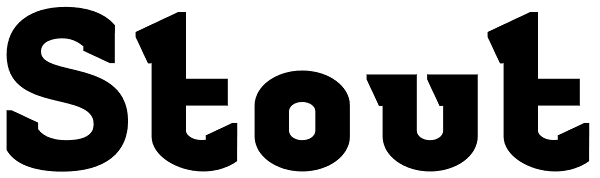
Stout
Stout is a deliberately aggressively solid family of four faces, offered in two weights and in serif (deliberately large serifs) and sans forms. It’s ideal for signage that needs to be read over long distances or for anything where an emphatic...
Stout Sans
Stout Sans Bold
Stout Bold
Stout